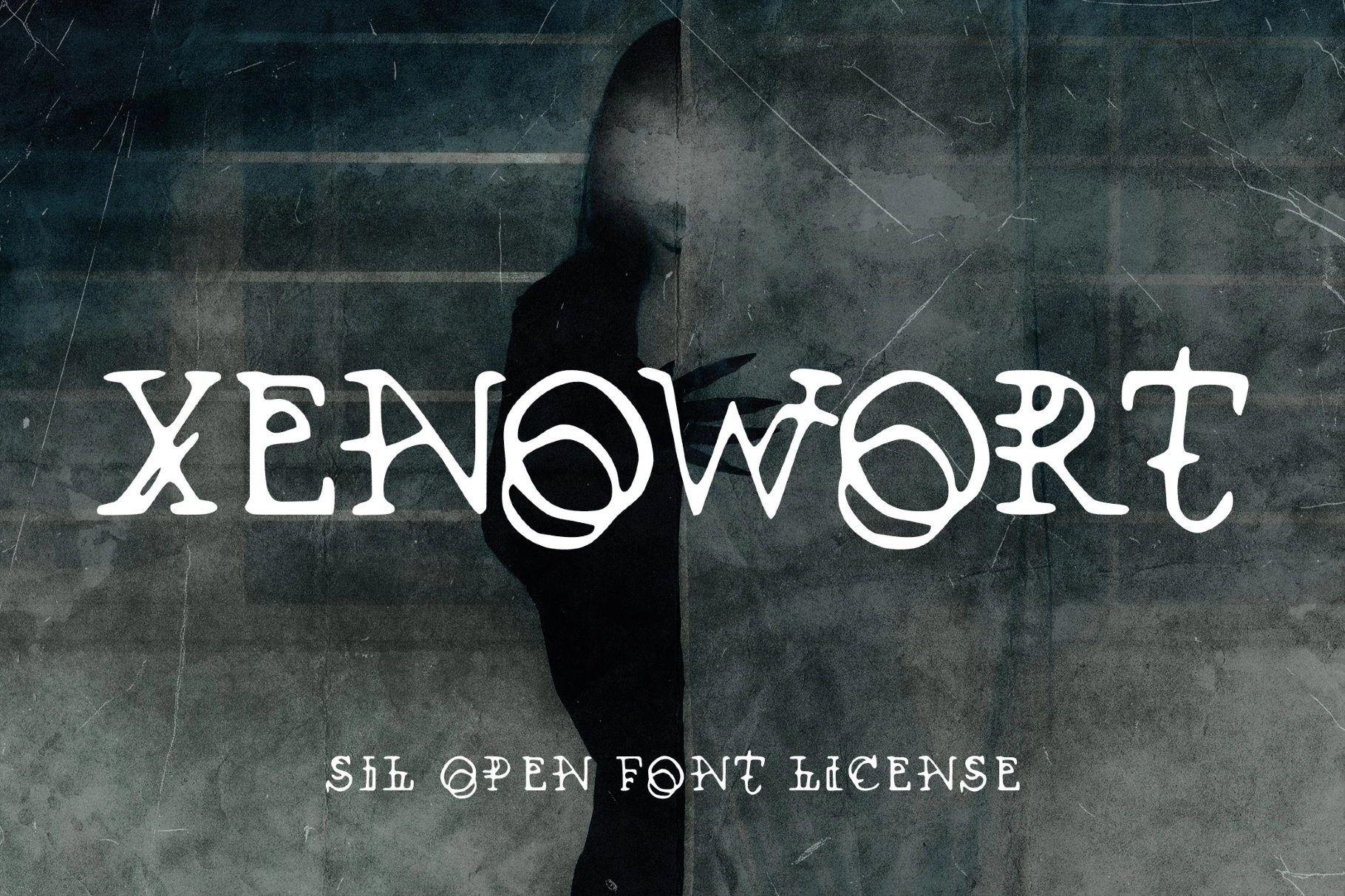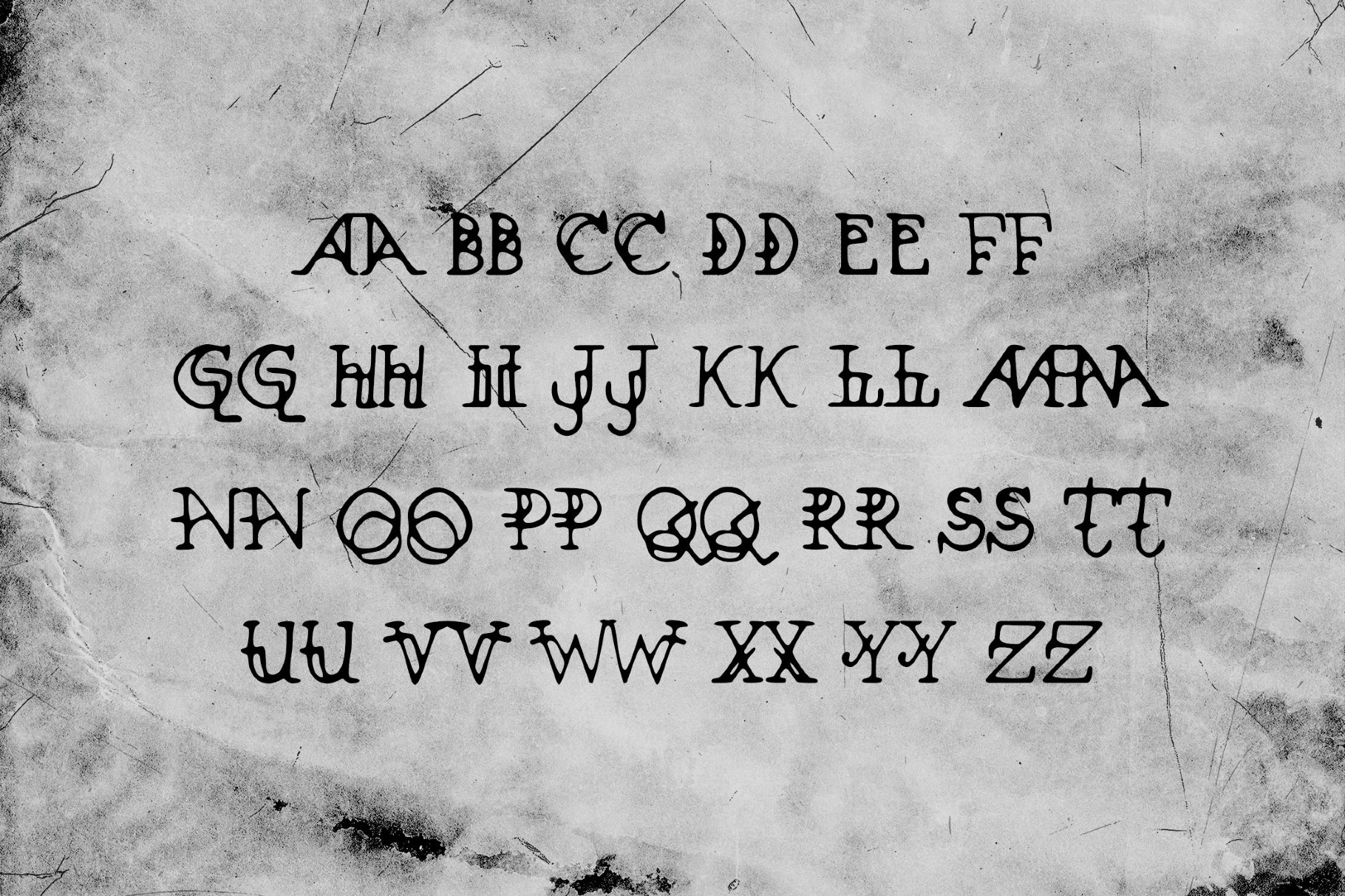
Xenowort Horror / Creepy Font
Xenowort
Xenowort takes creepy letters in the fantasy-driven direction, where each glyph carries a distinct visual presence. It draws attention immediately and works best where typography takes center stage — logos, headlines, posters, invitations, and themed branding. It also fits fantasy, theatrical visuals, or decorative compositions.